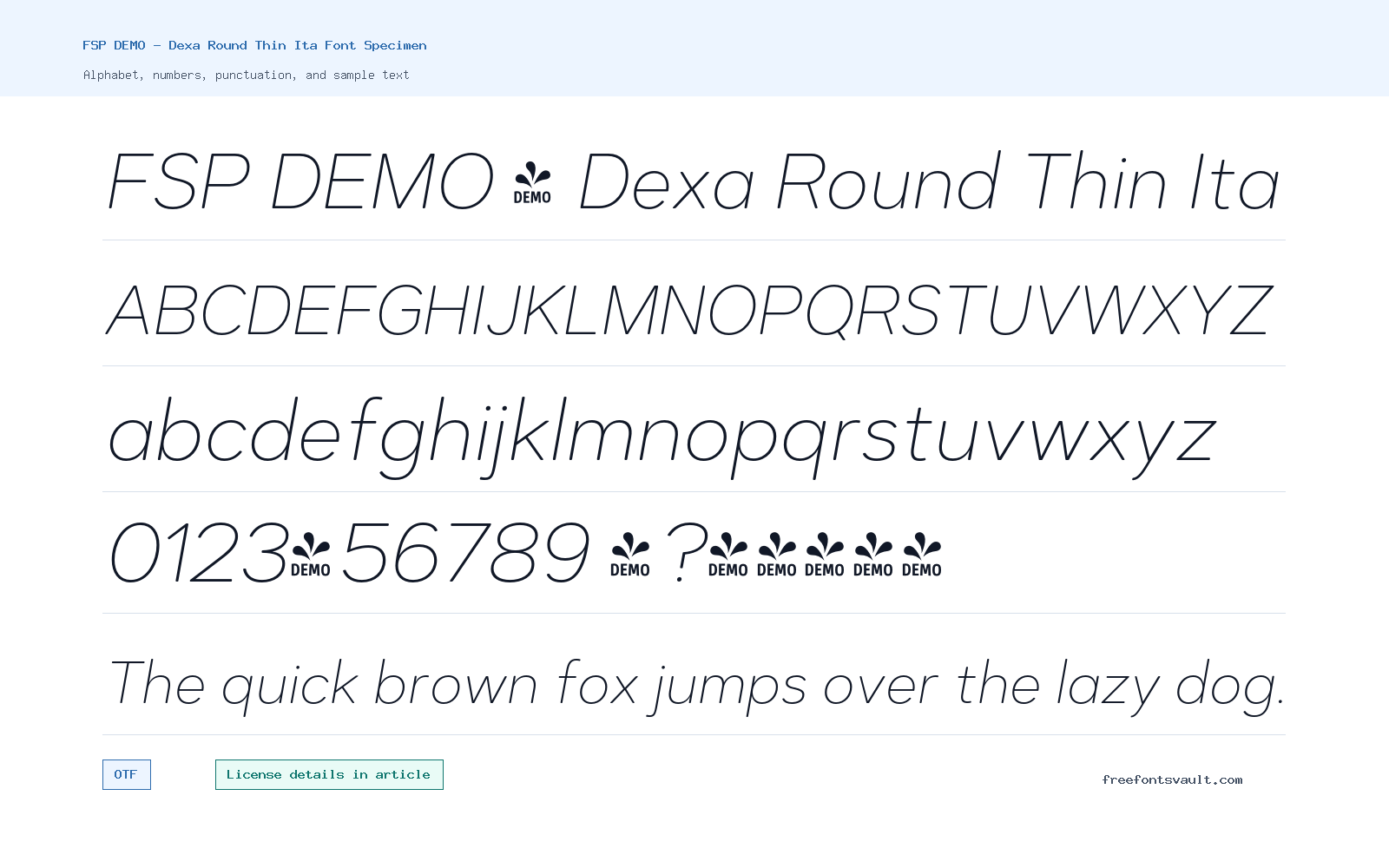
FSP DEMO - Dexa Round Thin Ita
FSP DEMO – Dexa Round Thin Ita font.
FSP DEMO – Dexa Round Thin Ita is a thin italic cut from the Dexa Round family, a rounded sans serif family by Ceyhun Birinci for Artegra. It has a light, slanted look with softened corners, making it useful for testing elegant headings, captions, and short display text before choosing a full licensed version.
About FSP DEMO – Dexa Round Thin Ita
Dexa Round is described by Fontspring as the rounded-corner version of Dexa Pro. The wider Dexa Round family spans Thin through Black weights and includes italic counterparts, so this Thin Ita file represents the lightest italic end of that system. The design is sans serif, but the rounded terminals keep it from feeling sharp or rigid. In the thin weight, the letters feel airy and restrained; the italic angle adds movement without turning the font into a script style.
Use this demo file for previewing how the style behaves in real words, not for assuming final project rights. Thin italic fonts can look refined at large sizes, but they need space and contrast. Try it in short titles, pull quotes, fashion-style labels, soft branding mockups, portfolio headings, and interface accents. It may become too delicate for small body text, low-resolution screens, or busy image backgrounds. Test uppercase, lowercase, numbers, punctuation, and accented words if your project needs them. The included file is OTF, which is common for desktop design tools and font preview systems.
- Thin 100-weight italic style with rounded sans serif forms
- Part of the Dexa Round family, which Fontspring lists with weights from Thin to Black and true italic counterparts
- Best tested at larger sizes where the light strokes remain clear
- Minimal headings and short editorial titles
- Elegant quote graphics or social images
- Soft brand mockups, packaging tests, and portfolio concepts
For best results, preview this font with the exact words you plan to use. Thin italic letters can feel clean and polished in short lines, but they lose strength when used too small. Pair it with a regular or medium sans serif for longer text so the thin italic can stay as an accent. If your design uses a dark photo or textured background, increase size, spacing, or contrast. Check numbers and punctuation as well as letters, especially for menus, invitations, price lines, and social posts.
What kind of font is it?
It is a thin italic rounded sans serif style. The letters are light, slanted, and softly shaped rather than sharp or decorative.
Where does this style work best?
It works best in short text such as headings, pull quotes, refined labels, and display accents. Avoid relying on it for small body copy unless your preview shows strong readability.